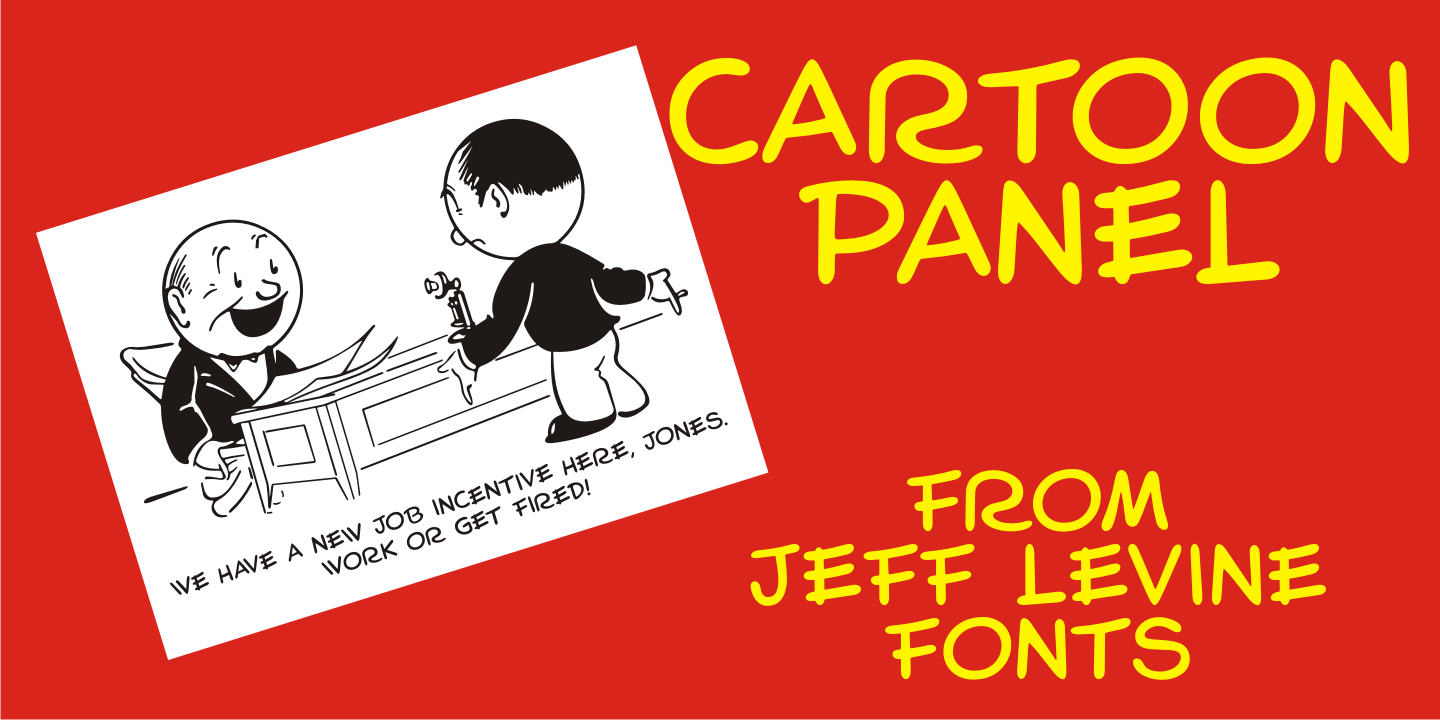
Cartoon Panel
Charles W. 'Plot' Plotner was a cartoonist who had developed a template-based cartooning set for kids circa 1952 called 'Plot-O”. A companion set was called 'Plot-O the Clown”.
'Plot-O” consisted of two plastic templates with pre-cut and numbered cartoon shapes. By following the simple directions and tracing the corresponding parts, any youngster could create basic cartoons of people and finish them off with their own details.
The hand-lettered instruction booklet provided the design inspiration for Cartoon Panel.